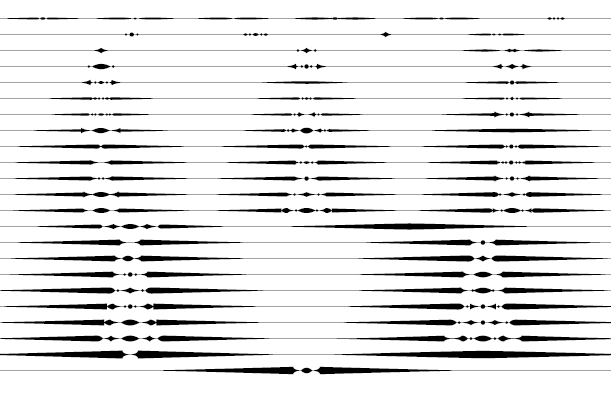
MFC Brass Rules Grand
Font Family by Monogram Fonts Co
The inspiration source for Brass Rules Grand is a collection of the brass rules from the 1889 ?Convenient Book of Specimens? from Franklin Type Foundry in Cincinnati. This is a collection of basic utilitarian brass rules that has been created as combinable and endlessly expanding.
Filling the Numerals and all Capital and Lowercase glyph slots are a total of 62 traditional Brass Rule designs, all extendable by combining with other rules, or by extending the pin line by simply typing a dash "-" or ".". A truly sleek and simple utilitarian font for invitations, menus, business cards, and whatnot.